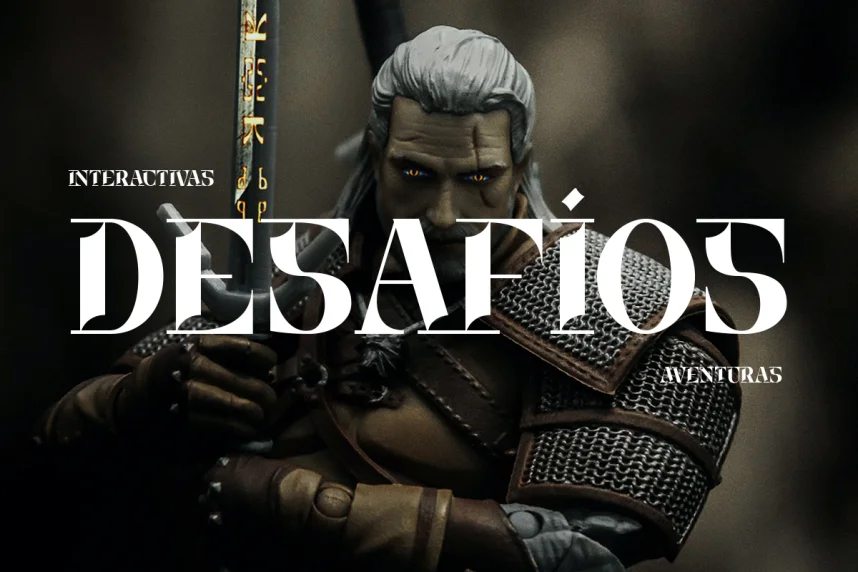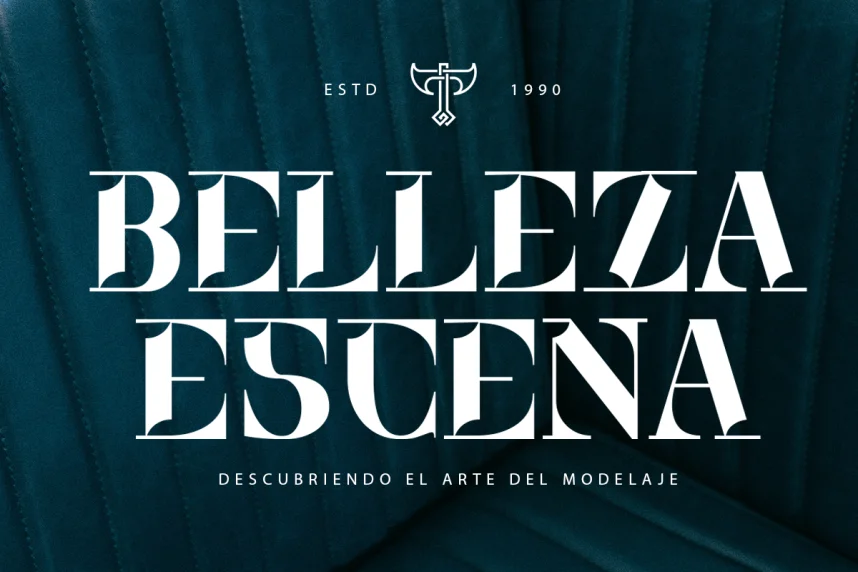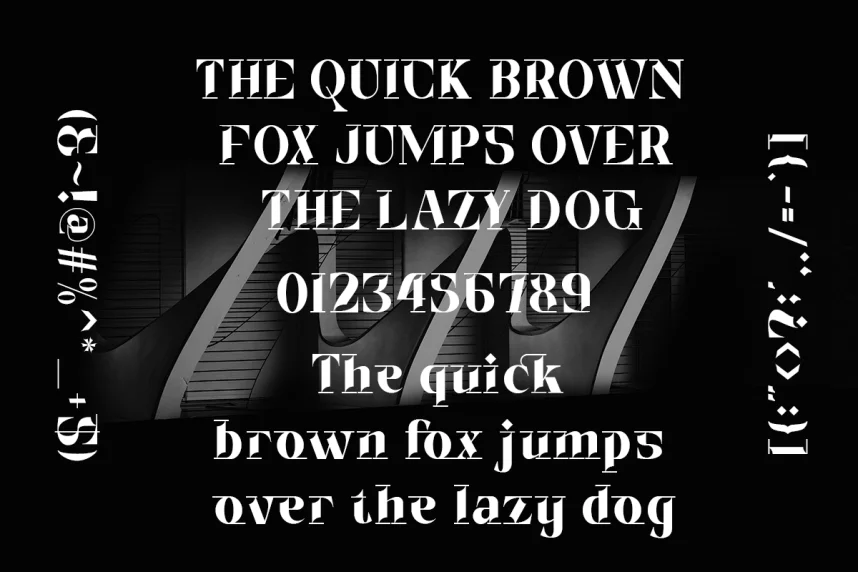
Dinamika Font is a modern sans-serif typeface addressing readability and brand consistency across digital and print applications. Its balanced proportions make text legible in headings, user interfaces, and marketing materials.
The font features uniform stroke widths, open counters, and clean terminals. Its minimalistic design supports professional layouts and scalable text, suitable for UI design, presentations, and editorial graphics. Subtle stylistic alternates add versatility for creative projects.